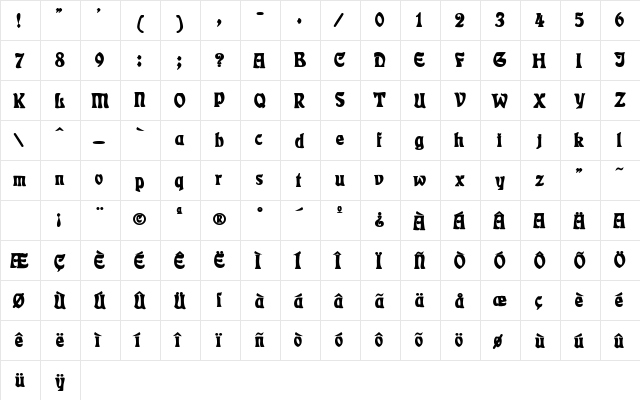
DeauvilleSSK Bold
Design Context for DeauvilleSSK Typeface
DeauvilleSSK is a composed and adaptable typeface that performs quietly and consistently across a wide range of design contexts. The heavy weight commands attention and anchors typographic hierarchies.
Pro Tip: Pair DeauvilleSSK with a font of contrasting weight or personality to build a more expressive typographic hierarchy.